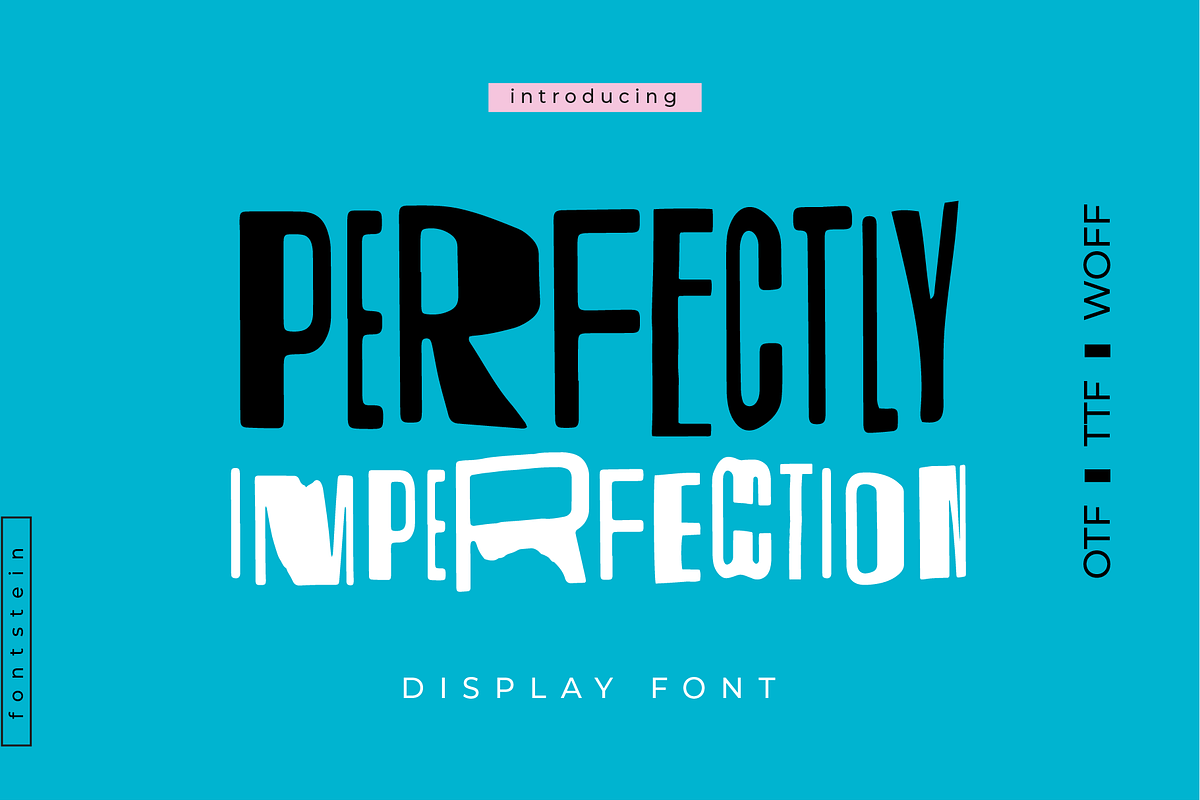
Perfectly Imperfection Font Free Download is a unique and artistic handwritten typeface that embraces the beauty of imperfections. With its raw, organic strokes and imperfect forms, this font is perfect for adding a personal touch to designs, making it ideal for branding, logo design, packaging, greeting cards, and social media graphics.
The font captures the essence of hand-drawn lettering, giving your projects a whimsical and authentic feel. It includes uppercase and lowercase letters, numerals, punctuation, and alternative characters that allow you to infuse even more personality into your typography.
Whether you're creating a rustic brand, a creative invitation, or a custom logo, Perfectly Imperfection Font Free Download adds charm and character to your designs. Feel free to test it in personal projects, and make sure to purchase the proper license for commercial use. Embrace the beauty of imperfection with this delightful and expressive font.